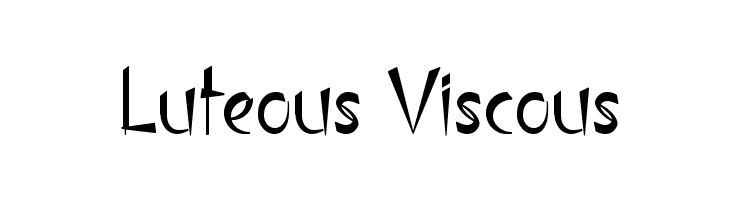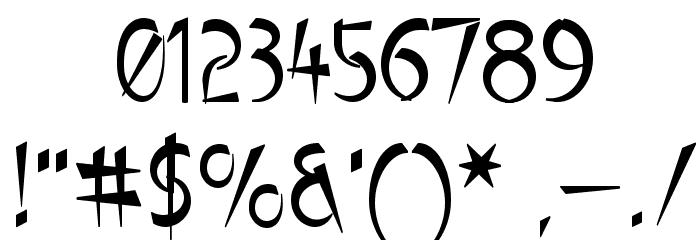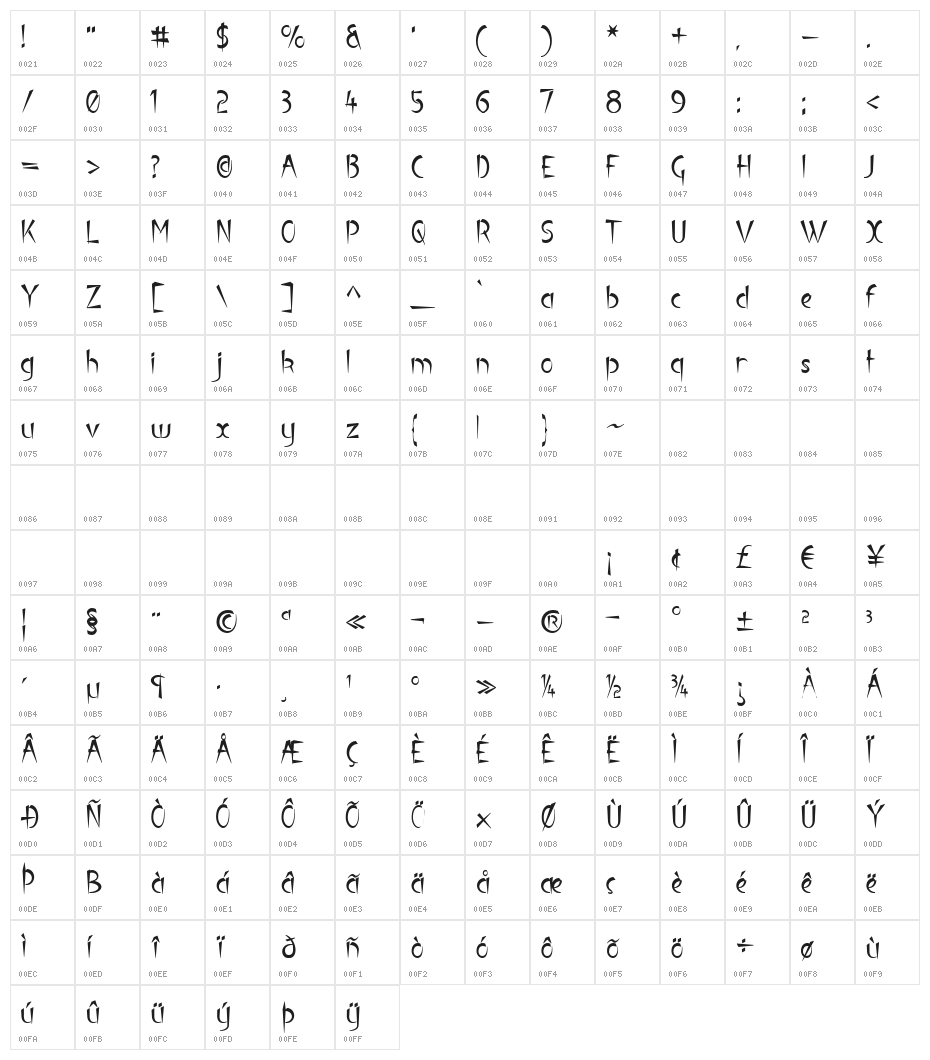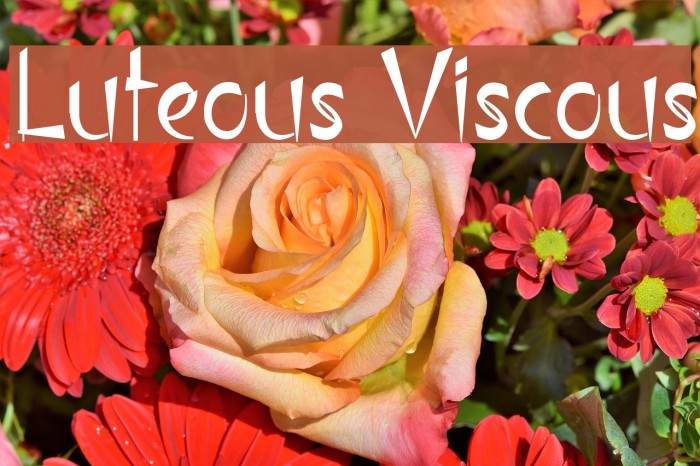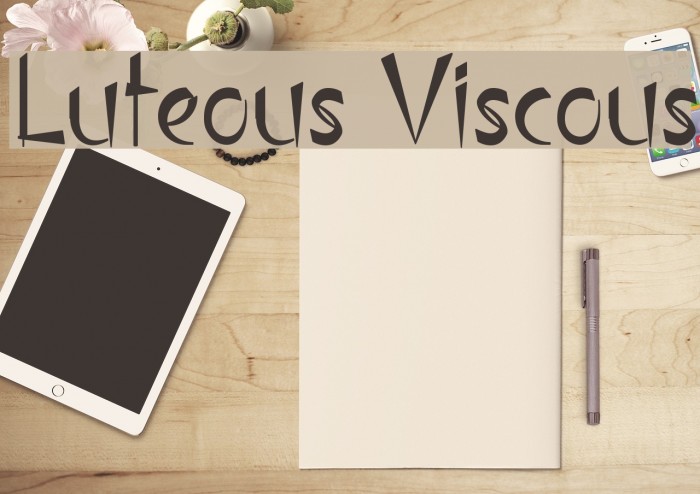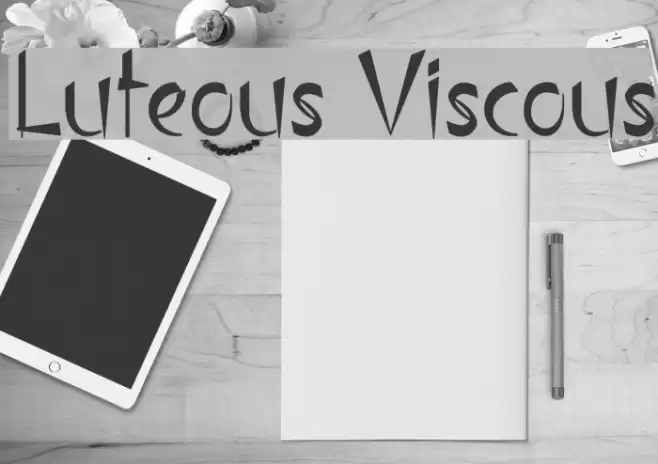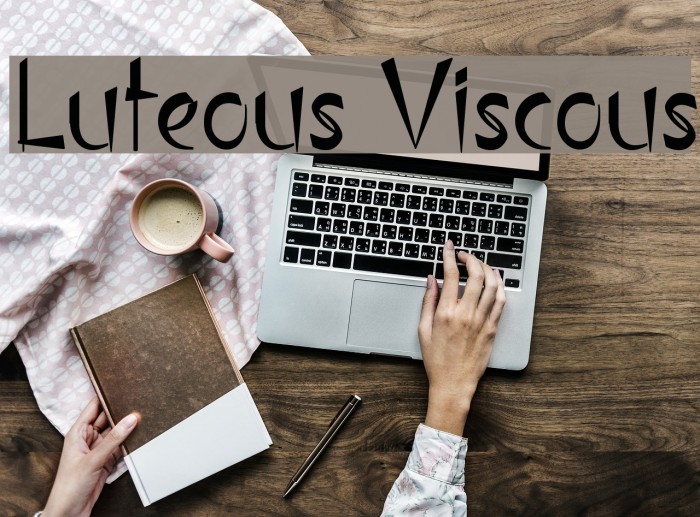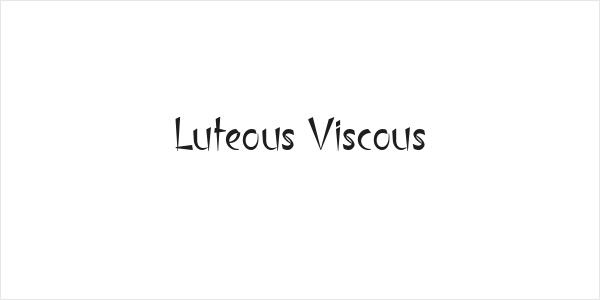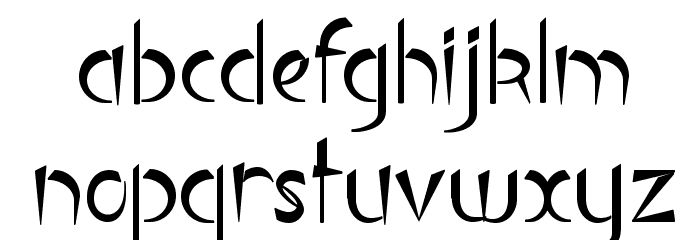
Luteous Viscous Font
Luteous Viscous Description
This font features a bold and striking design with sharp, angular lines and a futuristic aesthetic. The uppercase letters are particularly distinctive, with elongated vertical strokes and unique geometric shapes that give the font a dynamic and edgy appearance. The lowercase letters maintain a consistent style, offering a harmonious blend of curves and angles. Numbers and special characters follow the same design principles, ensuring a cohesive look across all glyphs. The font's overall style is both modern and decorative, making it suitable for projects that require a strong visual impact.
| Proposed Projects | Ideal for sci-fi themed designs, posters, logos, and branding that require a modern and edgy look. |